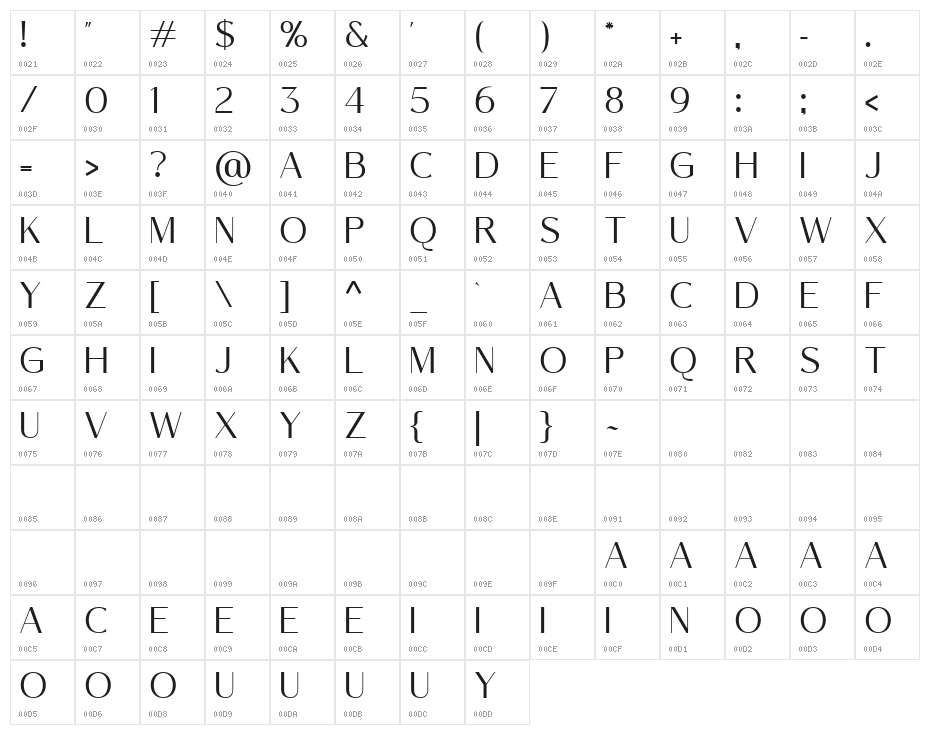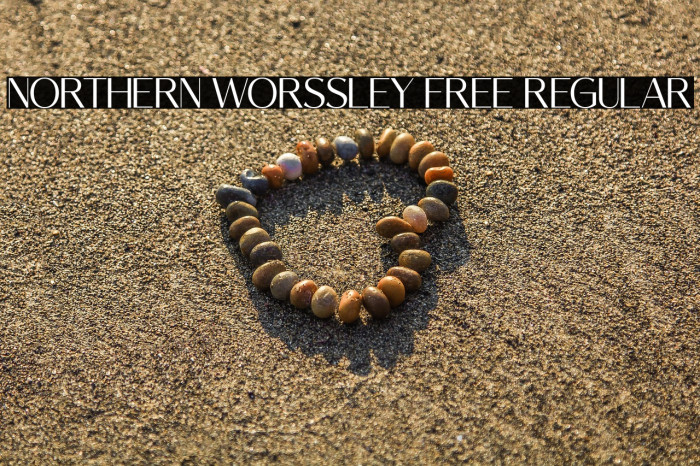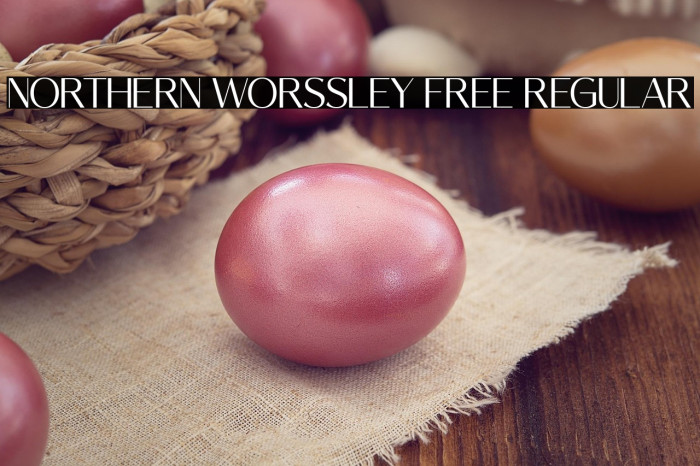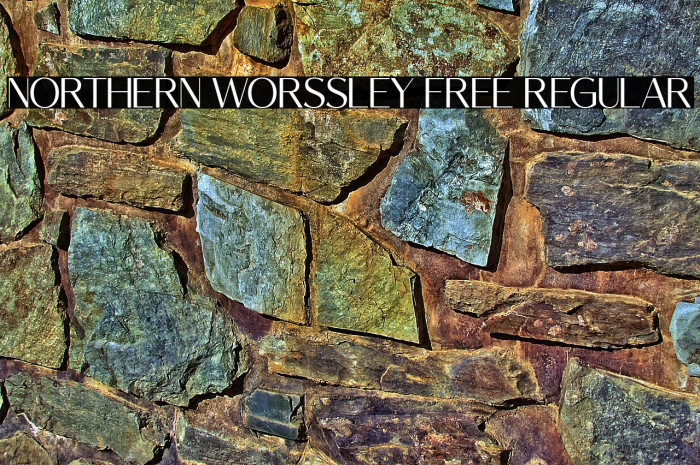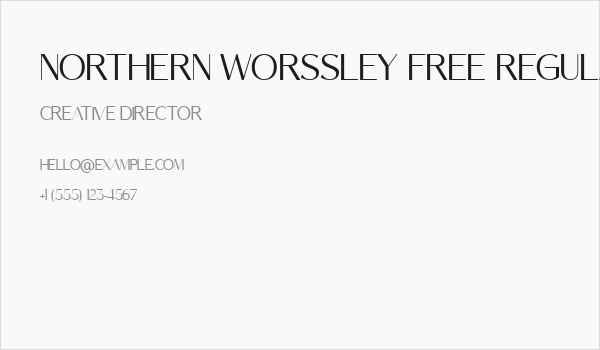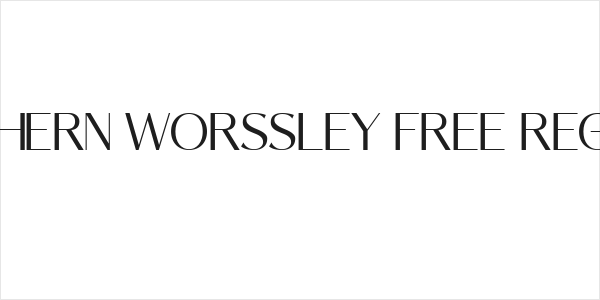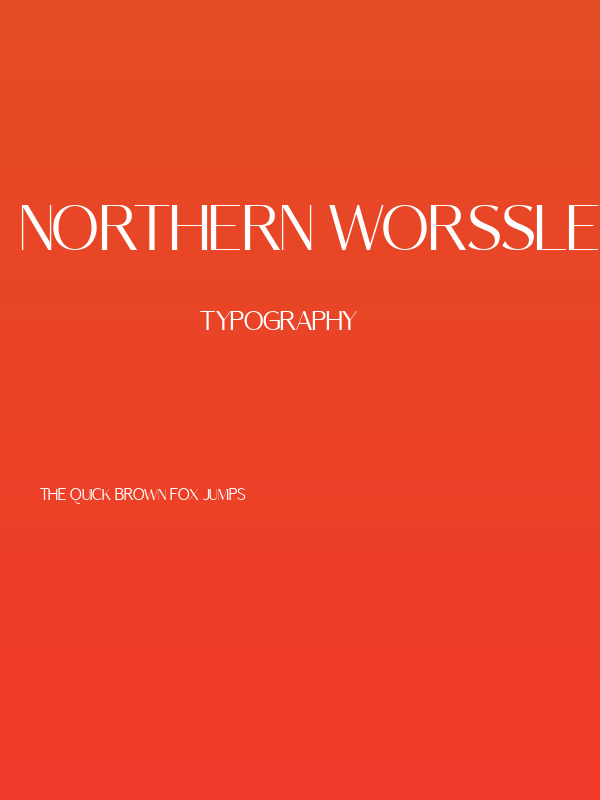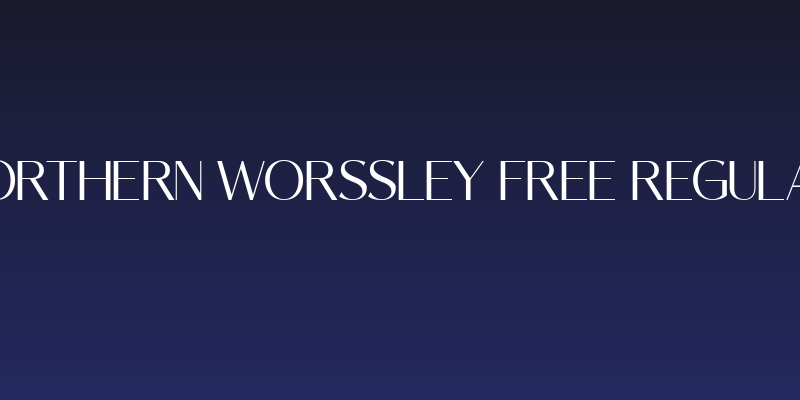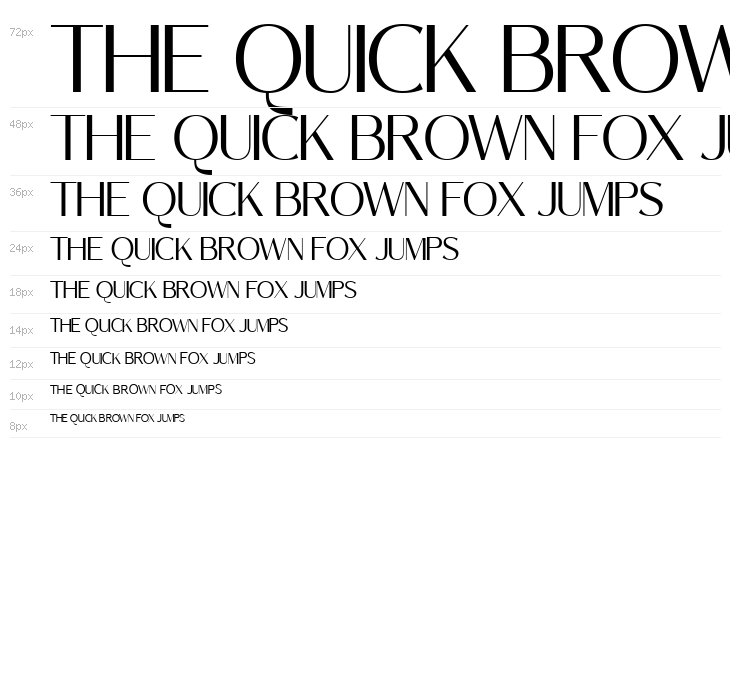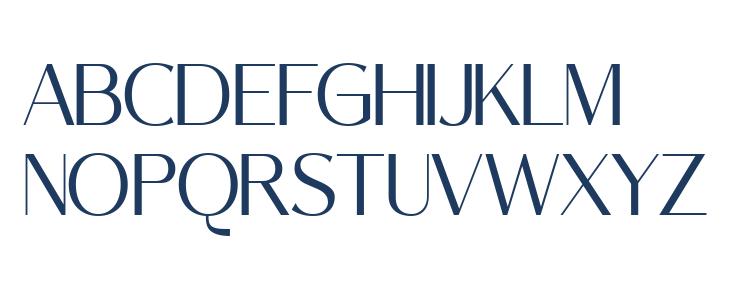
Northern Worssley Free Regular Font
Northern Worssley Free Regular Description
This font exhibits a modern and elegant style with clean, sharp lines and a sophisticated appearance. The uppercase letters are tall and slender, with a slight geometric influence, giving them a contemporary feel. The lowercase letters maintain a similar aesthetic, providing a cohesive look. The numerals are distinct and easy to read, featuring a consistent stroke width that complements the overall design. Special characters are well-integrated, maintaining the font's sleek and polished appearance. The font's design is versatile, suitable for a variety of applications where a modern and refined look is desired.
| Proposed Projects | Ideal for branding, editorial design, luxury product packaging, and modern web design. |